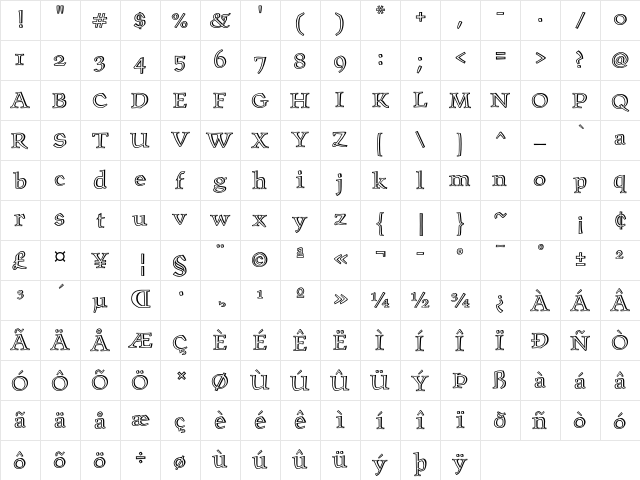
Oldrichium ITC Std Engraved
Style: Engraved
Designer: George Thompson
Design Context for Oldrichium ITC Std
Oldrichium ITC Std is built around its visual character rather than neutral utility - its distinctive forms are designed to make an impression at display sizes.
Font Pairing: Pair with a clean neutral sans-serif for body copy to let Oldrichium ITC Std's character lead without overwhelming the composition.
Pro Tip: Use Oldrichium ITC Std exclusively at display sizes - it was designed to be seen, not read at length. Let a neutral companion handle body copy.